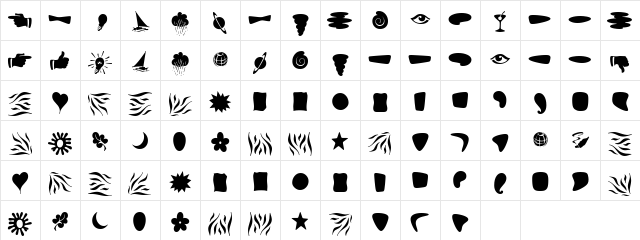
Fontesque OrnamentsBlack
Style: OrnamentsBlack
Complete Fontesque OrnamentsBlack glyph index. Displaying only characters natively supported by Fontesque OrnamentsBlack font.
Design Context for Fontesque
Fontesque is built around its visual character rather than neutral utility - its distinctive forms are designed to make an impression at display sizes.
Font Pairing: Pair with a clean neutral sans-serif for body copy to let Fontesque's character lead without overwhelming the composition.
Pro Tip: Use Fontesque exclusively at display sizes - it was designed to be seen, not read at length. Let a neutral companion handle body copy.